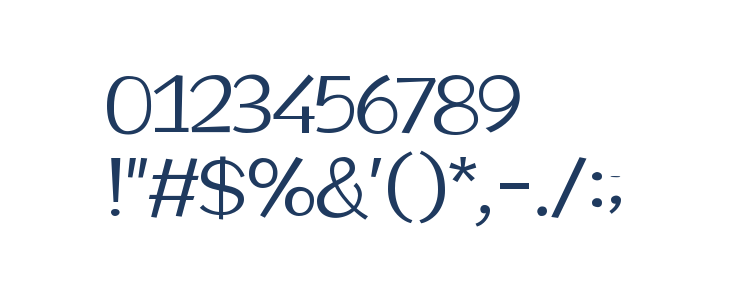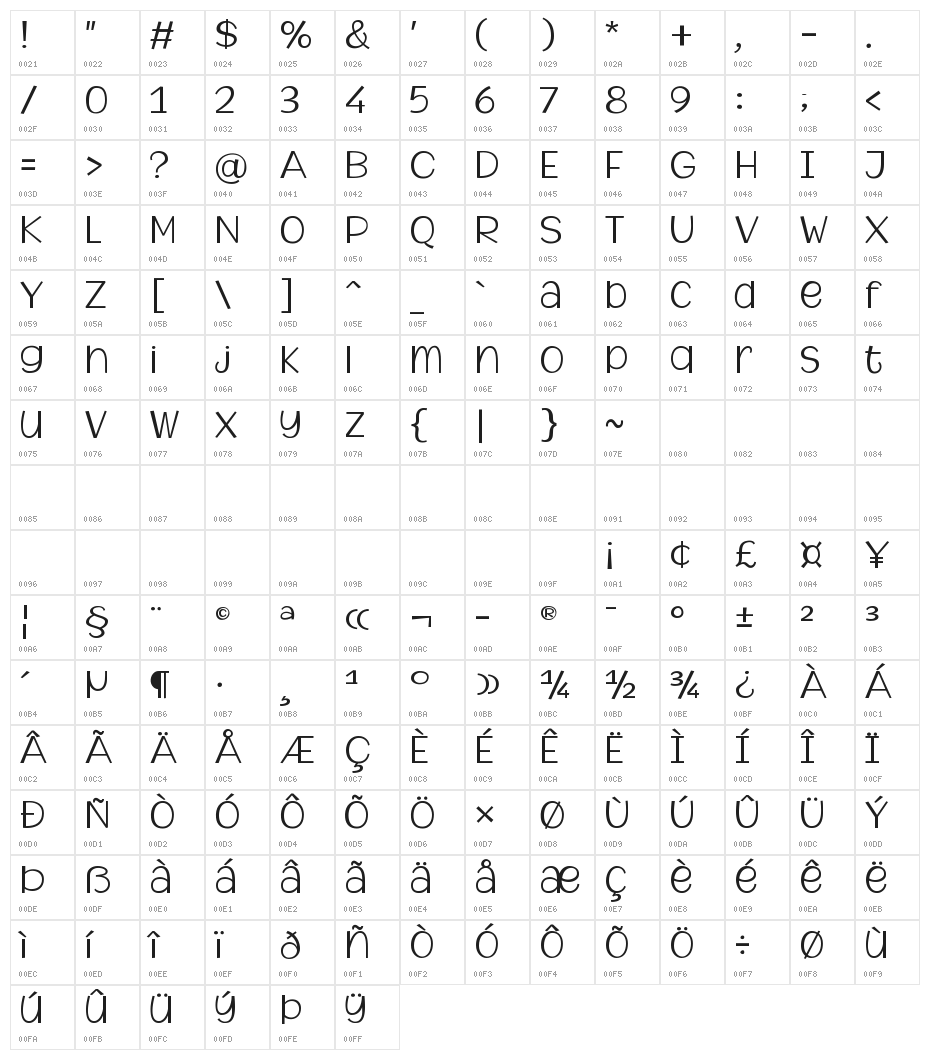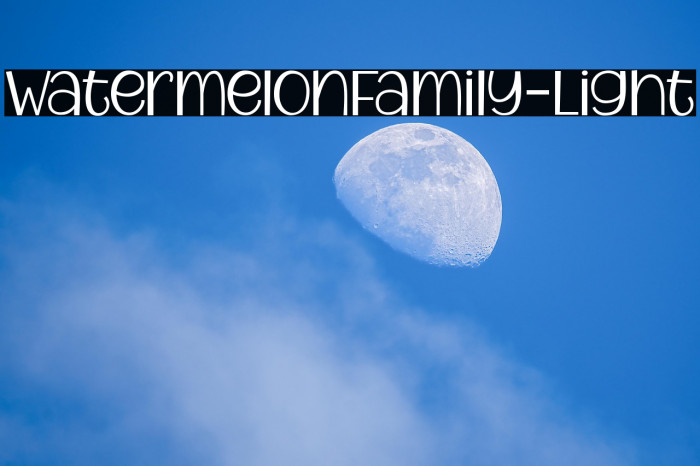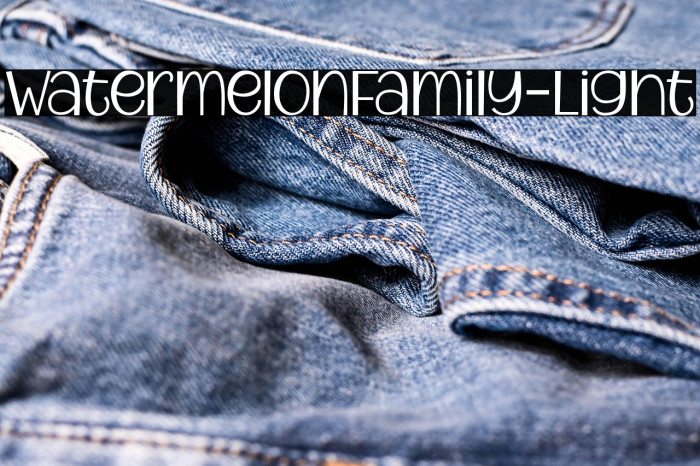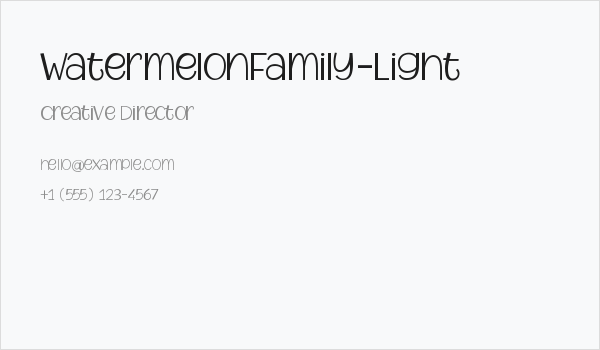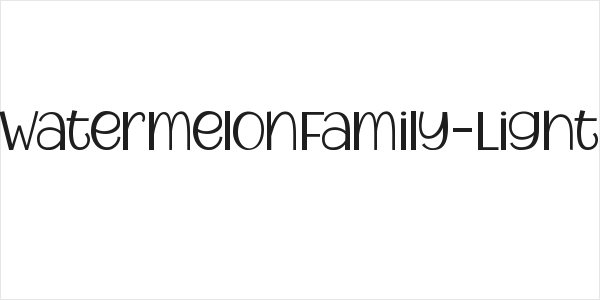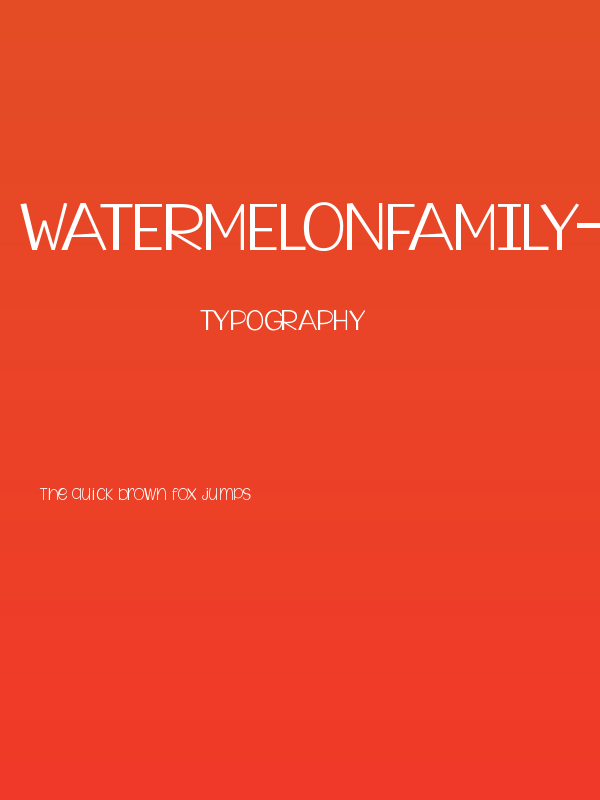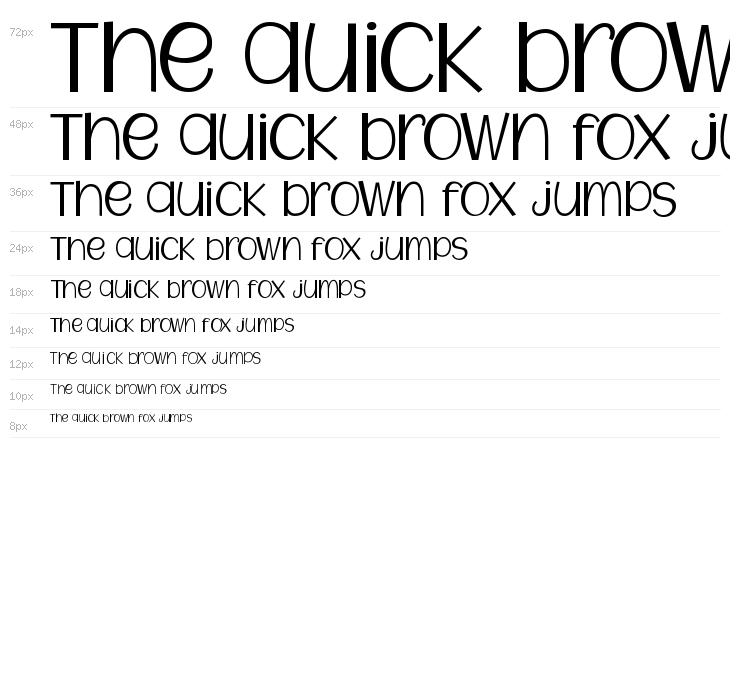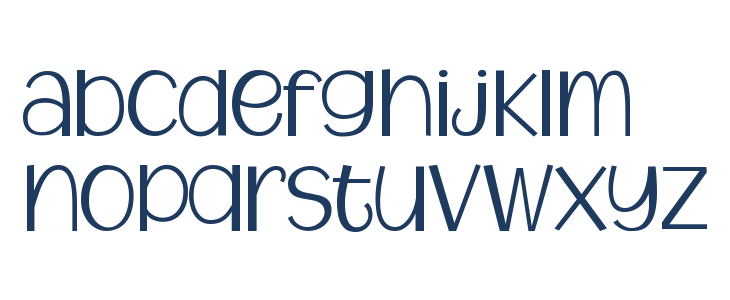
WatermelonFamily-Light Font
WatermelonFamily-Light Description
This font features a clean, modern design with a geometric structure. The characters are well-balanced, with a consistent stroke width that gives it a uniform appearance. The uppercase letters are bold and assertive, while the lowercase letters maintain a softer, more approachable look. The numerals are clear and easy to read, making them suitable for a variety of applications. Special characters are distinct and maintain the overall aesthetic of the font. The design is versatile, making it suitable for both digital and print media.